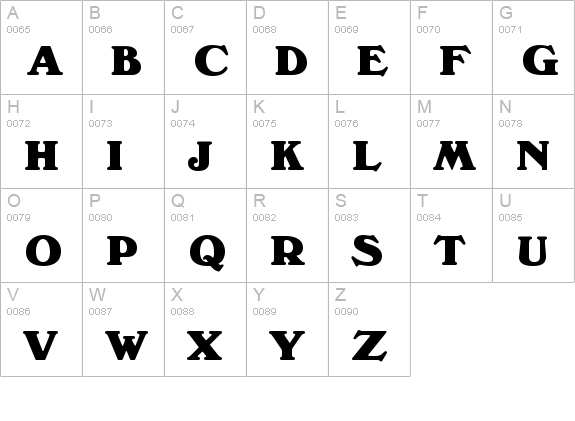
VeronaSerial-Heavy-Regular is a heavy, high-impact variant in the VeronaSerial typeface family \xE2\x80\x94 well suited to high-impact headlines, posters, and display advertising.
VeronaSerial-Heavy-Regular is a bold and impactful font that exudes strength and confidence. With its thick strokes and sturdy letterforms, this typeface commands attention and makes a statement in any design project. Whether used for headlines, titles, or branding materials, VeronaSerial-Heavy-Regular delivers a powerful and authoritative presence. The best part about this impressive font is that it is available for free download at FontsMarket.com. Yes, you heard it right - you can easily access and use VeronaSerial-Heavy-Regular without any cost. So why wait? Enhance your designs and make a bold statement with this exceptional font today!